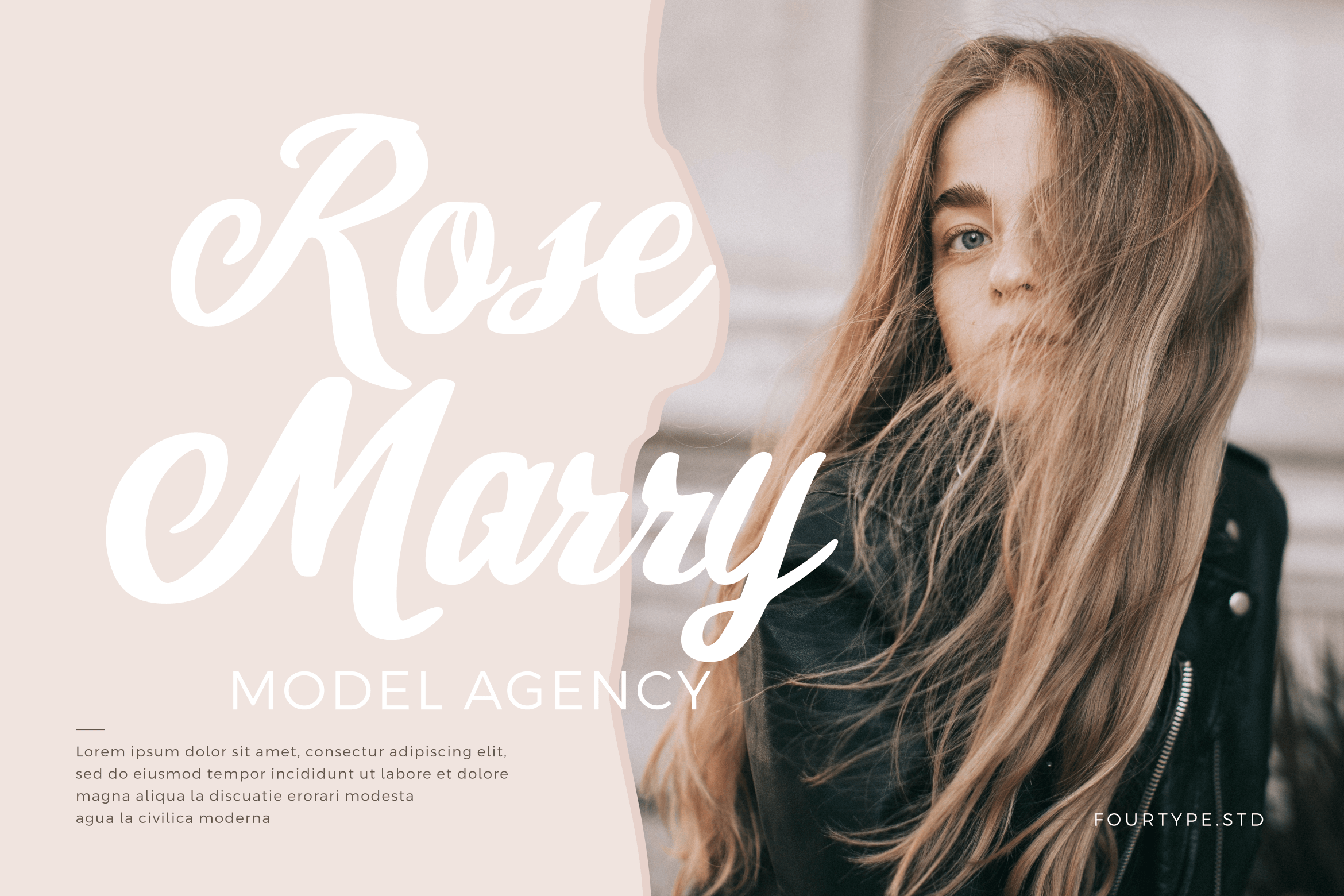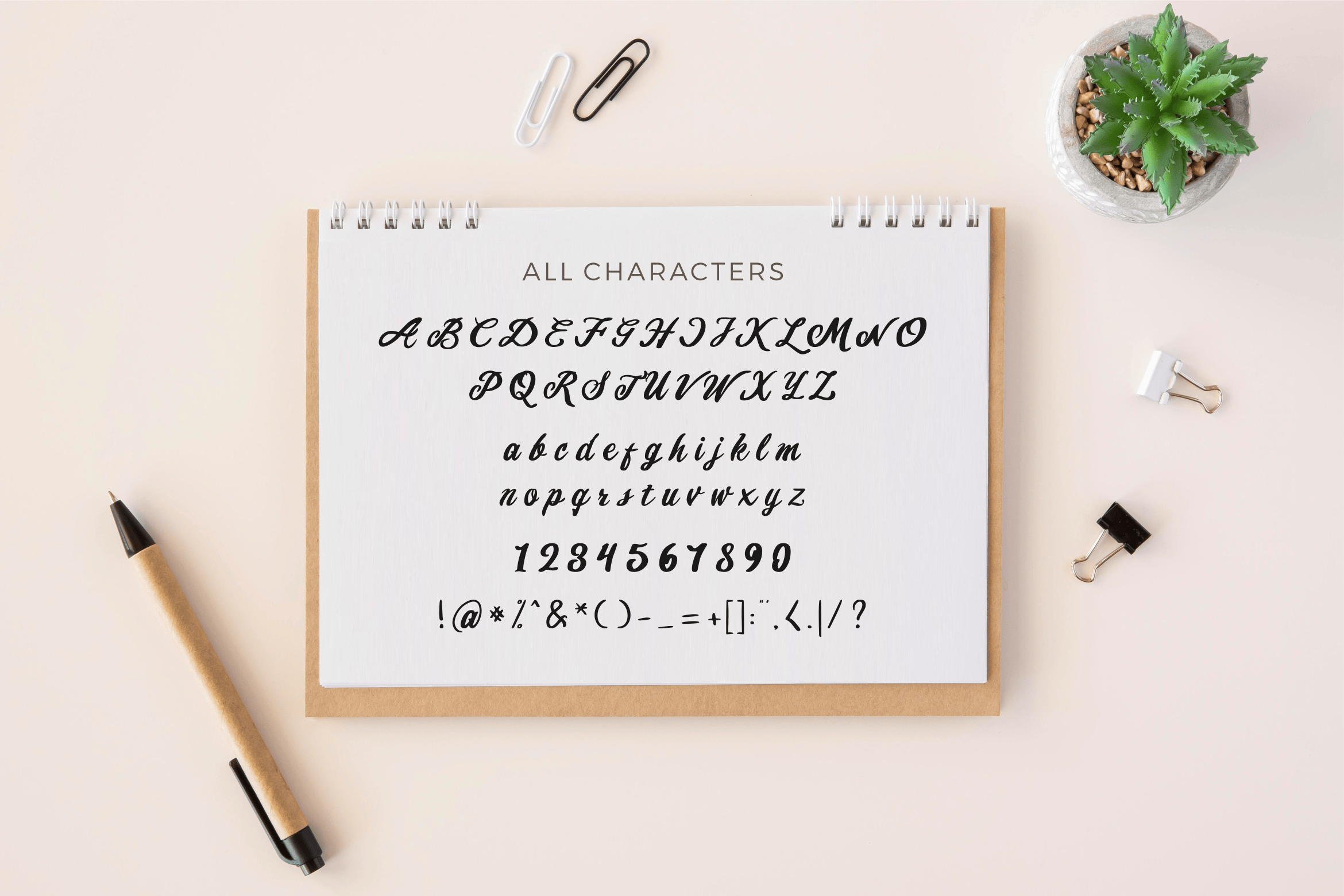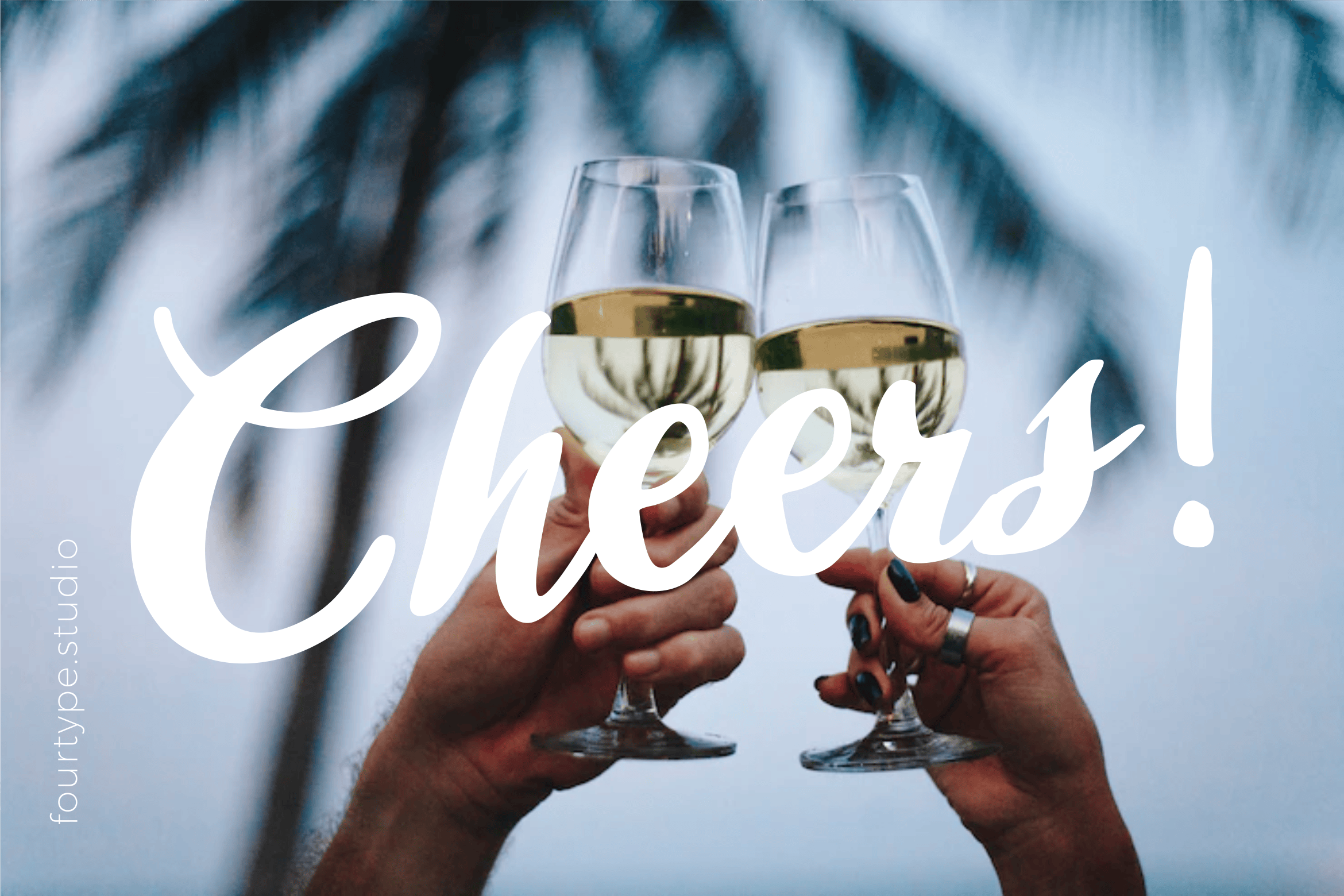
Tropicalism Font is a unique, modern, and stylish handwritten script font. This font was particularly crafted for those who need a beautiful and refreshing look to their designs.